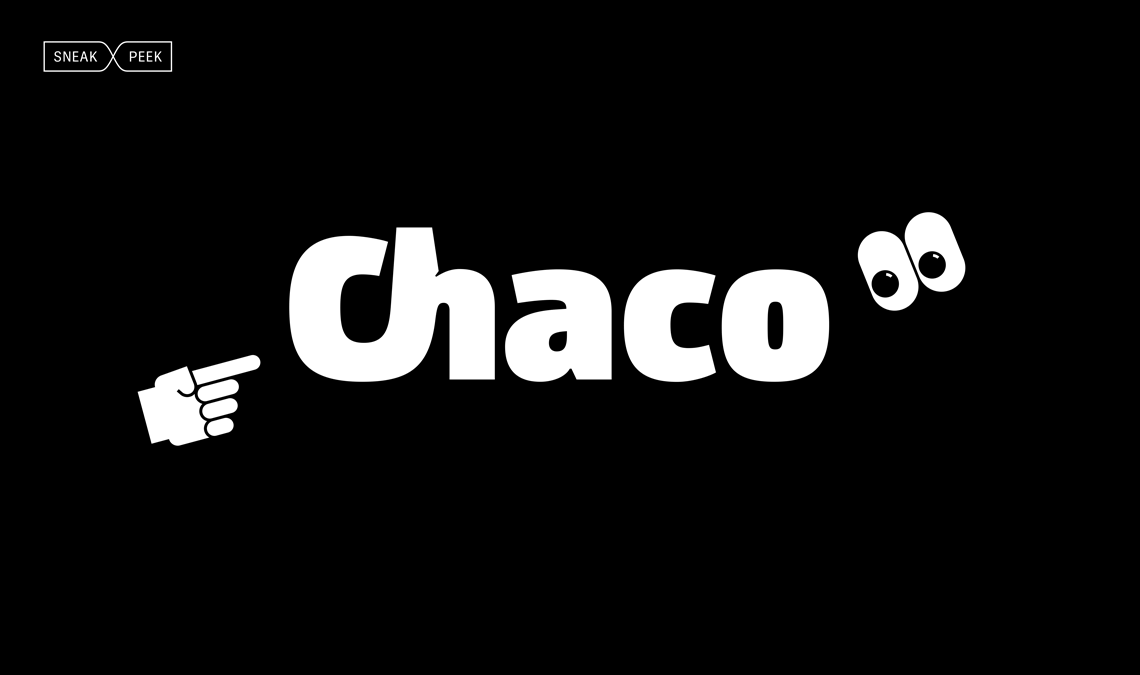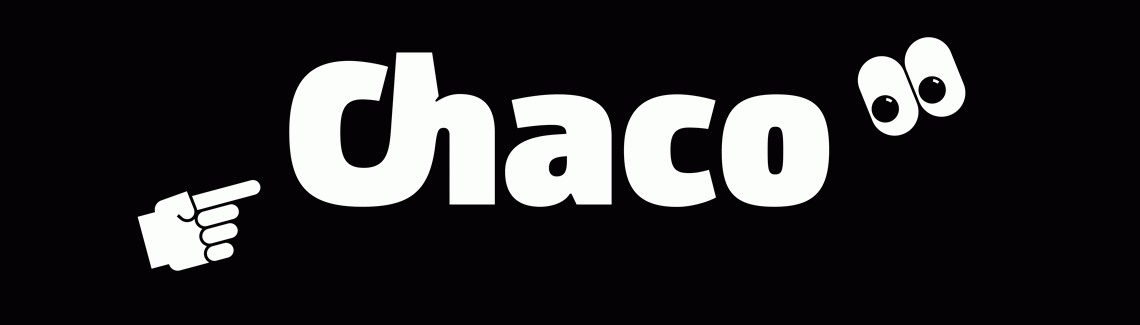
Chaco: sneak peek
TypeTogether is proud to welcome Rubén Fontana’s Chaco to our catalogue.
Rubén is a renowned Argentinian graphic designer, typeface designer, educator, and co-director with Zalma Jalluf of the Fontana Diseño studio. His work has been and remains a reference in Latin America and Spain.
Rubén was part of the Graphic Design degree’s founding group at the University of Buenos Aires (UBA), into which he incorporated the teaching of typography and editorial design, and later on directed UBA’s Master’s programme in typeface design. He was the director and editor of tipoGráfica magazine during its twenty years of publication, and has received multiple awards, such as the 2020 TDC Medal for a lifetime of outstanding contributions in the field of typography.
Take a look at Rubén Fontana’s Chaco, a sans with a classic soul and contemporary aesthetics, taking its place in TypeTogether’s catalogue very soon.